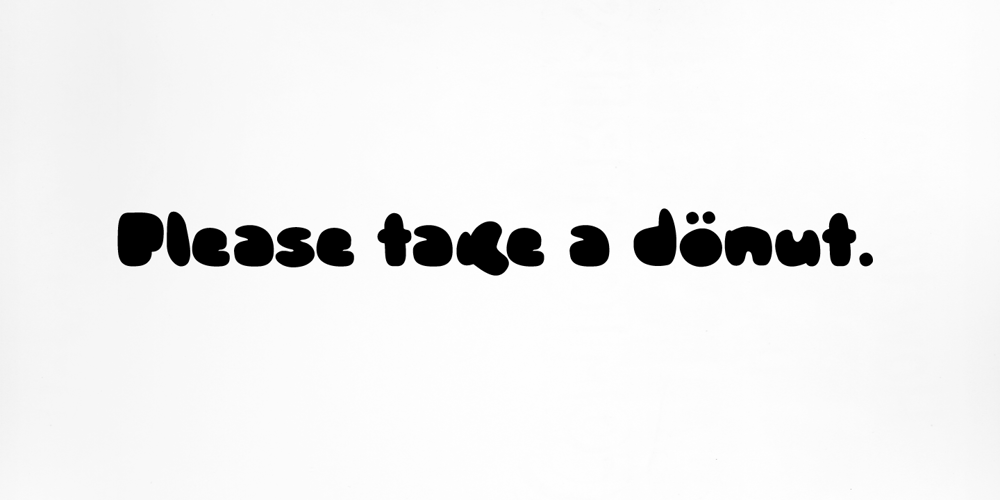
Donut
Donut font
Donut Font Family was designed by Vlad Rudakov and published by Vladvertising. Donut contains 1 styles and family package options. Yummy dönut ya? Does this type make me look fat?